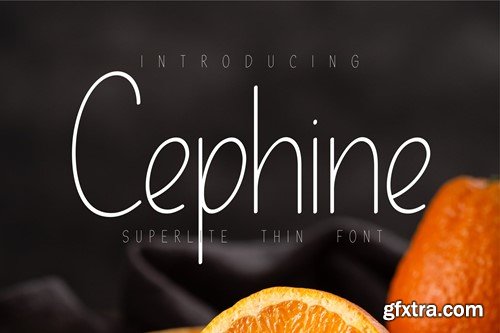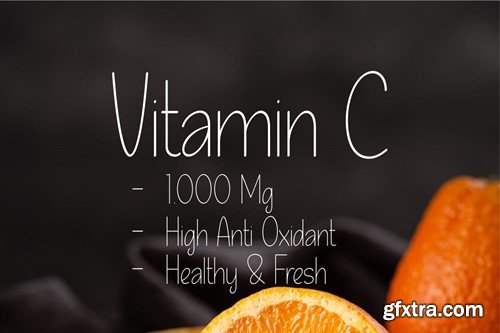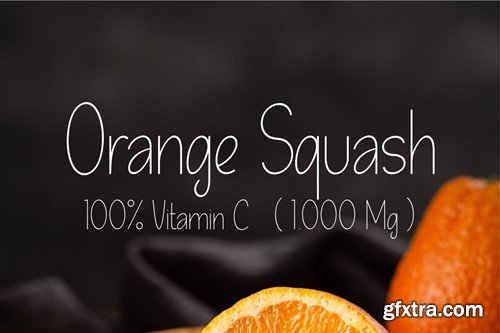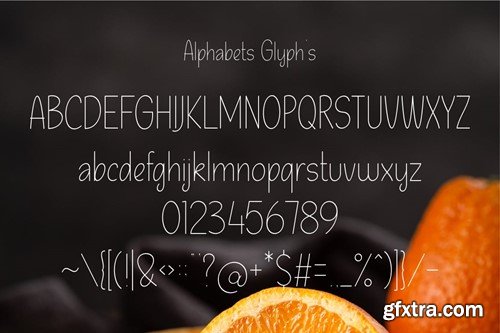
Cephine Font
Superlite and thin fonts for descriptions of packaged beverage products, such as packaged orange juice or other packaged drinks. Usually, fonts like this are suitable for elongated packaging shapes. fonts in .OTF and .TTF formats only.